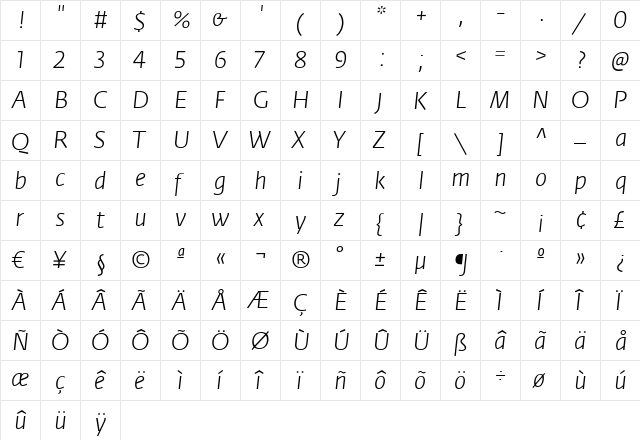
Fedra Sans Light Italic Font Preview
Design Context for Fedra Sans Typeface
Fedra Sans offers clean, dependable letterforms without strong stylistic allegiance, making it a practical choice for designers who need flexibility. The slanted form adds forward momentum and visual energy. The delicate stroke weight brings airiness and refinement to layouts.
Pro Tip: Try Fedra Sans for annotation and caption copy alongside an upright companion — the contrast in angle creates a dynamic but ordered typographic system.